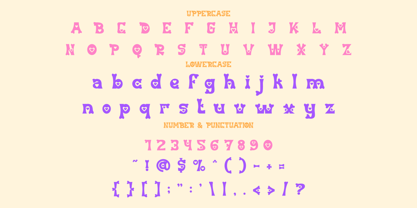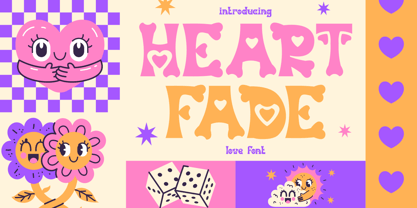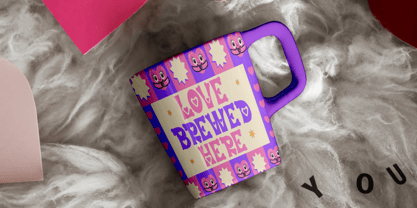
Heart Fade
by Shanaf
The Heart Fade Font Family was designed by Yesie Erma Yunita and published by Shanaf. Heart Fade contains 1 styles. More about this family
Heart Fade – Love Font is a charming typeface designed to capture affection, warmth, and whimsy. Each letter features playful curves and heart-inspired cutouts, giving the font a unique personality. The shapes are bold yet slightly quirky, with medium weight and rounded details that keep the characters approachable and friendly. Its style feels cheerful and affectionate, making it perfect for Valentine’s projects, wedding stationery, or any design that wants to emphasize love and joy. The balance between decorative elements and readability makes Heart Fade – Love Font versatile for both headlines and smaller creative texts. This font is ideal for logos, branding, greeting cards, packaging, posters, stickers, invitations, or magazine titles. Its whimsical details add charm without sacrificing clarity, making it especially suited for heartfelt quotes or event promotions. With its distinct style, Heart Fade – Love Font brings playful romance to any project. Use it for social media graphics, themed merchandise, or film titles to instantly deliver warmth and delight. Combining fun with emotional appeal, this font ensures that your design stands out while communicating love in a clear, stylish way.
Designers: Yesie Erma Yunita
Foundry: Shanaf